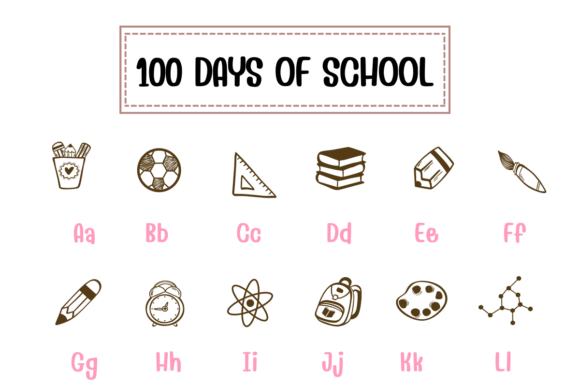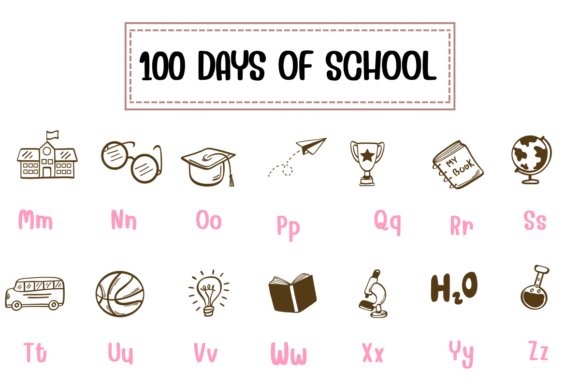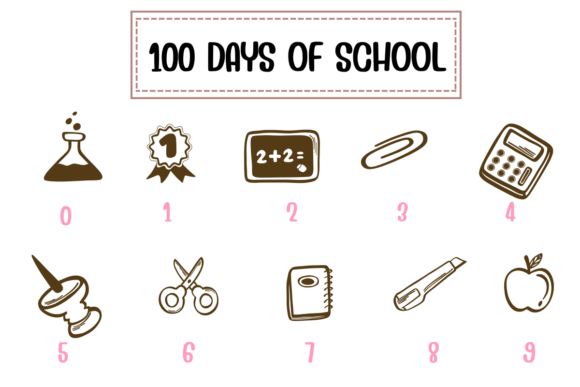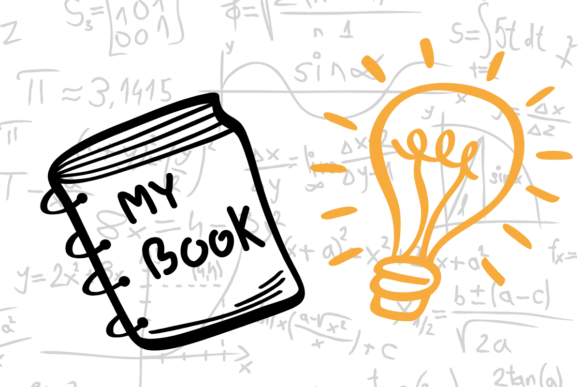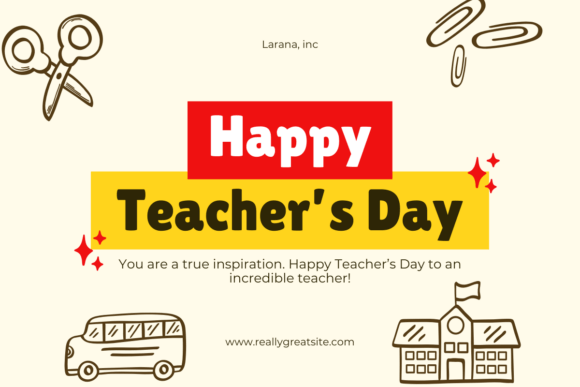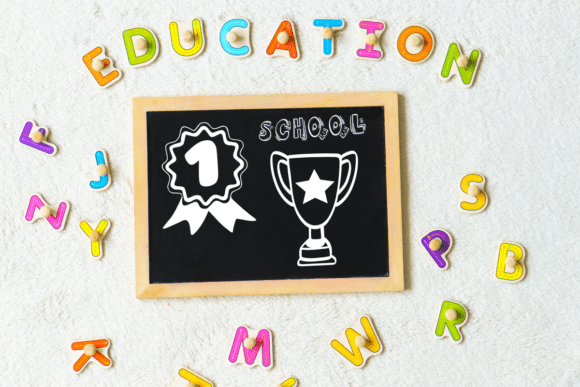
100 Days of School Font: A Playful Collection of School-Themed Doodles
Are you a teacher, designer, or crafter looking for a fun and engaging way to add illustrations to your educational projects? Look no further than the 100 Days of School Dingbats Font! This playful collection of school-themed doodles is perfect for adding a touch of whimsy to your classroom decorations, worksheets, posters, teacher resources, and back-to-school crafts.
What is the 100 Days of School Dingbats Font?
The 100 Days of School Dingbats Font is a unique and versatile collection of cute icons that are sure to delight students and teachers alike. Featuring a range of illustrations, including books, pencils, globes, and more, this dingbat font is the perfect way to add visual interest to your educational projects.
Key Features of the 100 Days of School Dingbats Font
- Playful and engaging designs: The 100 Days of School Dingbats Font features a range of fun and playful illustrations that are sure to capture the imagination of your students.
- School-themed icons: From books and pencils to globes and more, this font features a range of school-themed icons that are perfect for educational projects.
- Versatile and easy to use: This dingbat font is easy to use and can be incorporated into a range of projects, from classroom decorations to worksheets and posters.
- Perfect for back-to-school crafts: The 100 Days of School Dingbats Font is the perfect way to add a touch of fun and creativity to your back-to-school crafts and projects.
Ideas for Using the 100 Days of School Dingbats Font
The 100 Days of School Dingbats Font is a versatile and fun collection of illustrations that can be used in a range of educational projects. Here are some ideas to get you started:
- Classroom decorations: Use the 100 Days of School Dingbats Font to add a touch of fun and personality to your classroom decorations, from bulletin boards to window displays.
- Worksheets and activity sheets: Add visual interest to your worksheets and activity sheets with the 100 Days of School Dingbats Font.
- Posters and charts: Use this font to create eye-catching posters and charts that will engage and motivate your students.
- Teacher resources: The 100 Days of School Dingbats Font is perfect for creating teacher resources, such as lesson plan templates and grade trackers.
- Back-to-school crafts: Add a touch of fun and creativity to your back-to-school crafts and projects with this playful font.
Tips for Getting the Most Out of the 100 Days of School Dingbats Font
Here are some tips for getting the most out of the 100 Days of School Dingbats Font:
- Experiment with different colors and combinations: Don’t be afraid to try out different colors and combinations of illustrations to find the perfect look for your project.
- Use the font to add visual interest: Use the 100 Days of School Dingbats Font to add visual interest to your projects and keep your students engaged.
- Mix and match with other fonts: Try mixing and matching the 100 Days of School Dingbats Font with other fonts to create a unique and eye-catching look.
The 100 Days of School Dingbats Font is a playful and versatile collection of school-themed doodles that is perfect for adding fun and engaging illustrations to your educational projects. With its range of cute icons, including books, pencils, globes, and more, this font is ideal for classroom decorations, worksheets, posters, teacher resources, and back-to-school crafts. So why not give it a try and see how it can help you make learning and creating more engaging and fun!